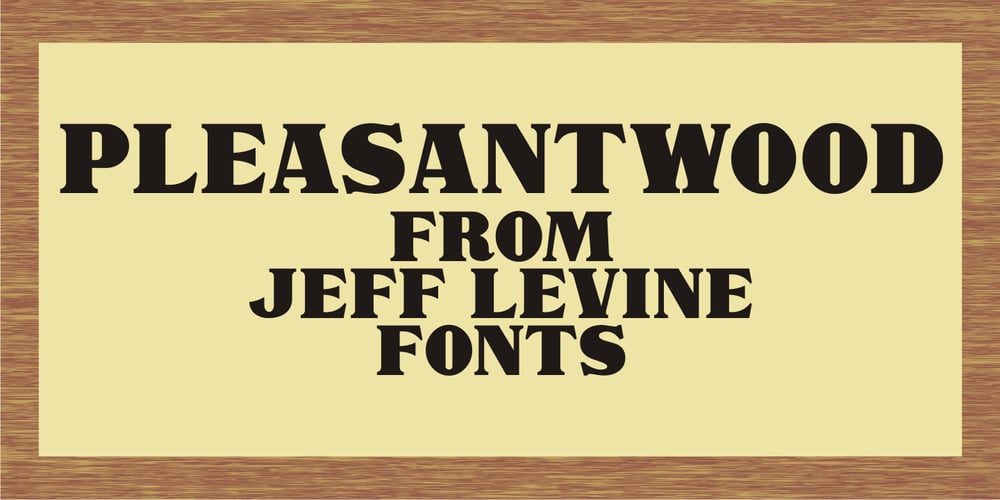
Pleasantwood JNL Font Family was designed by Jeff Levine and published by Jeff Levine. Pleasantwood JNL contains 1 styles and family package options. Although wood types were at their peak of use during the letterpress era of the late 19th and early 20th centuries, there is a growing revival movement of “boutique” print shops who have embraced the look and texture of this form of printing. More modern in design that many of its counterparts, Pleasantwood JNL is still a nice addition to the wood type library re-drawn digitally by Jeff Levine Fonts.